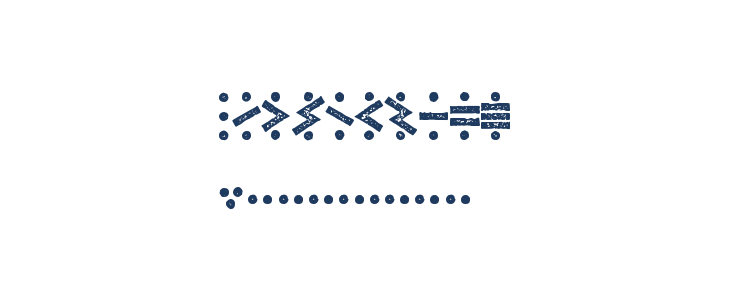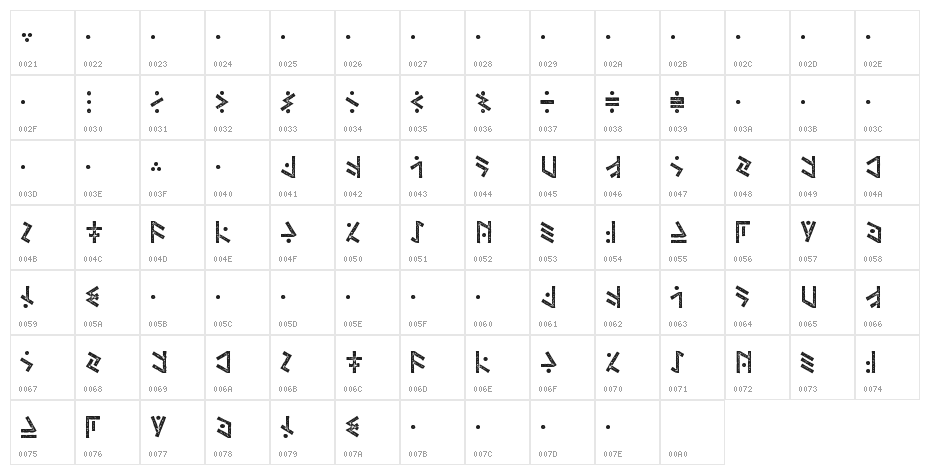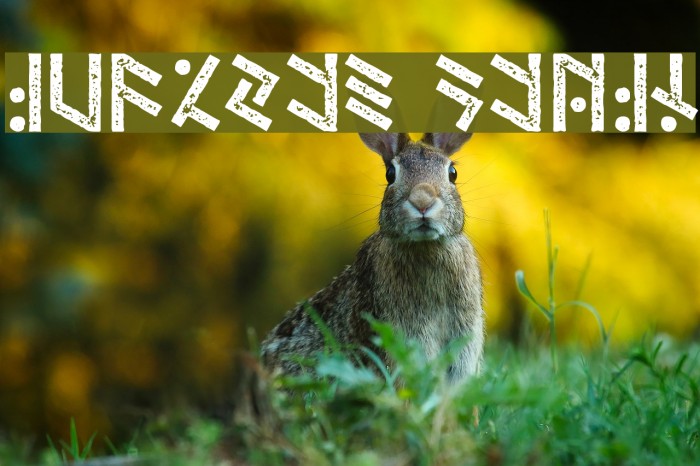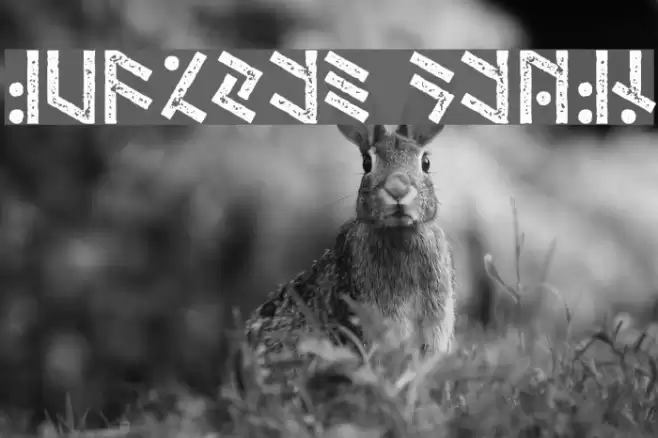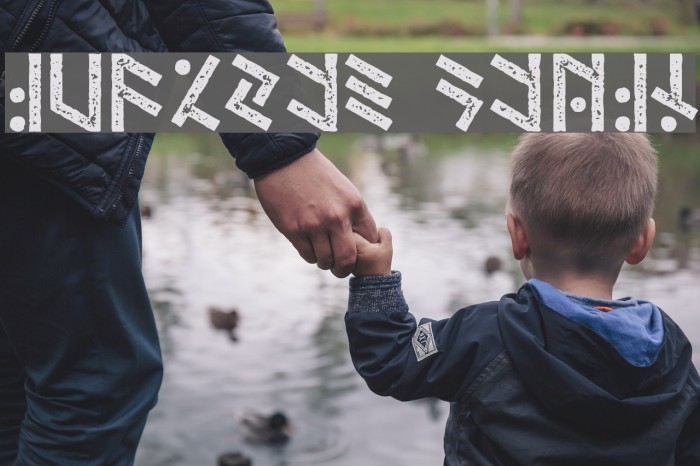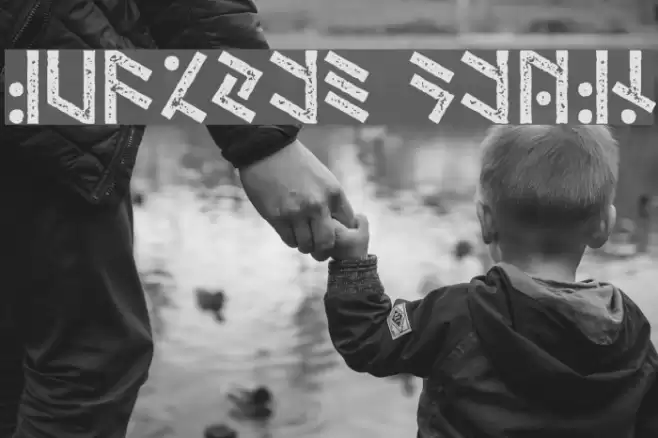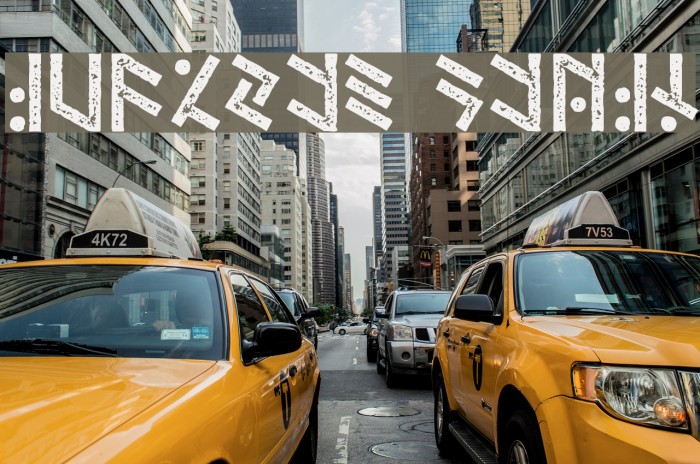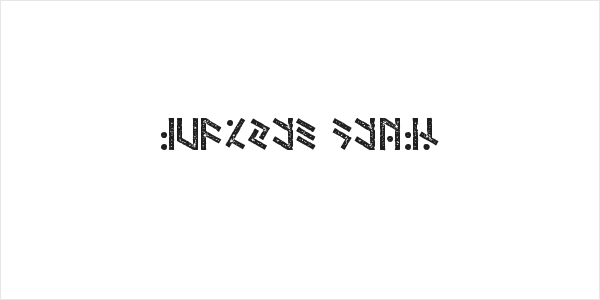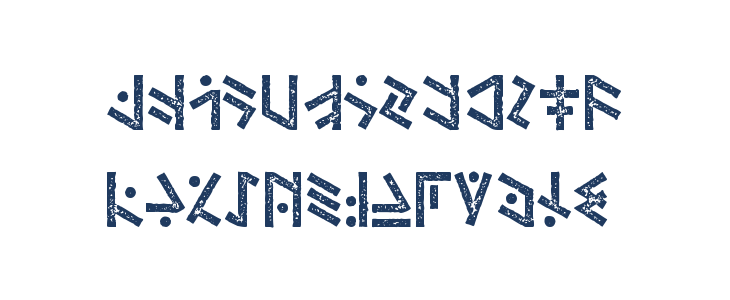
Temphis Dirty Font
Temphis Dirty Description
This font features a unique, cryptic design with a distressed texture, giving it a rugged and ancient appearance. The characters are composed of angular shapes and lines, interspersed with dots that add to its mysterious aesthetic. The overall look is reminiscent of ancient scripts or coded languages, making it ideal for projects that require a sense of enigma or historical depth. The distressed texture adds a layer of complexity, suggesting wear and age, which enhances its visual interest. Each character maintains a consistent style, ensuring readability while preserving its distinctive look.
| Overall Style | Decorative, Ancient, Mysterious |
| Use Case | Logos, Titles, Themed Events |
| Proposed Projects | Ideal for escape room themes, mystery novels, historical documentaries, or video games set in ancient or fantasy worlds. |